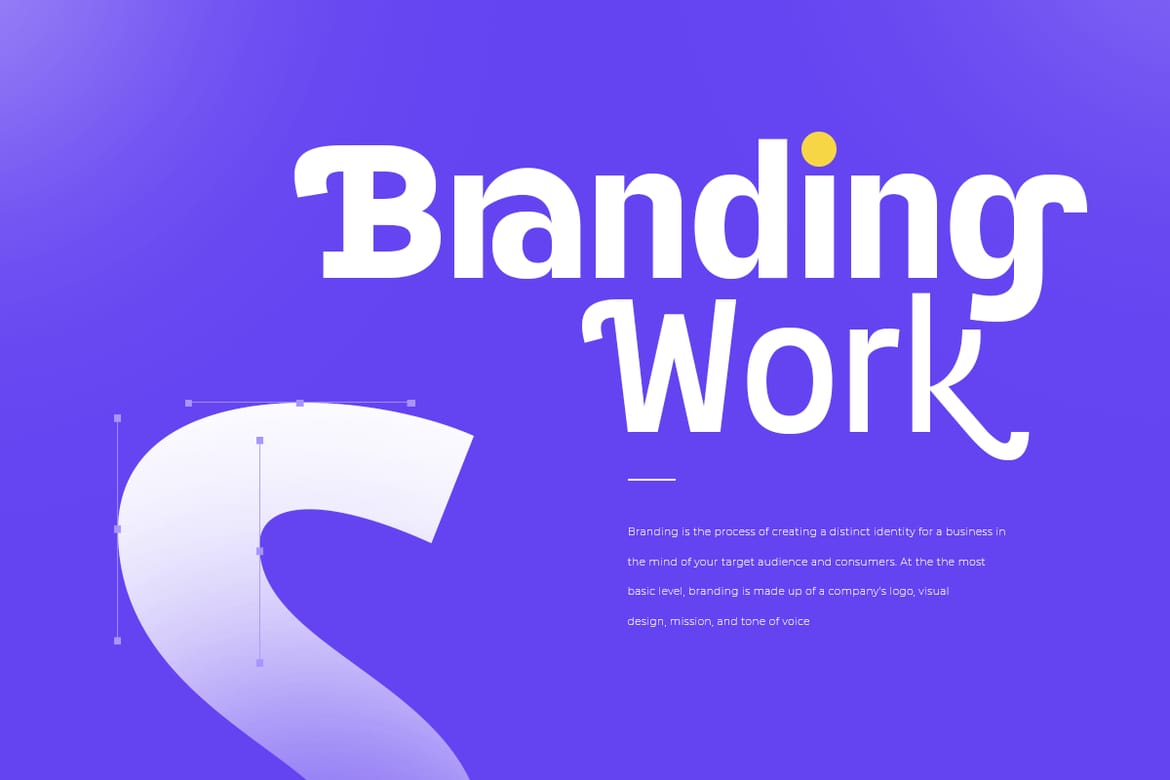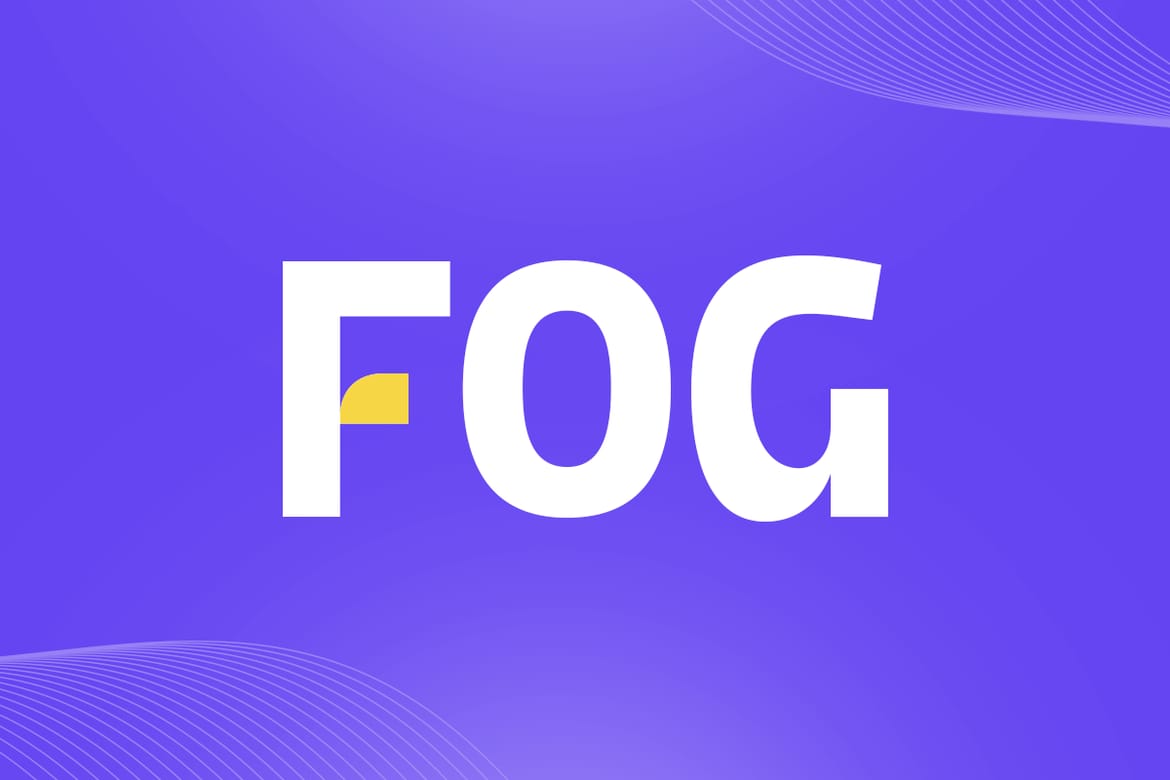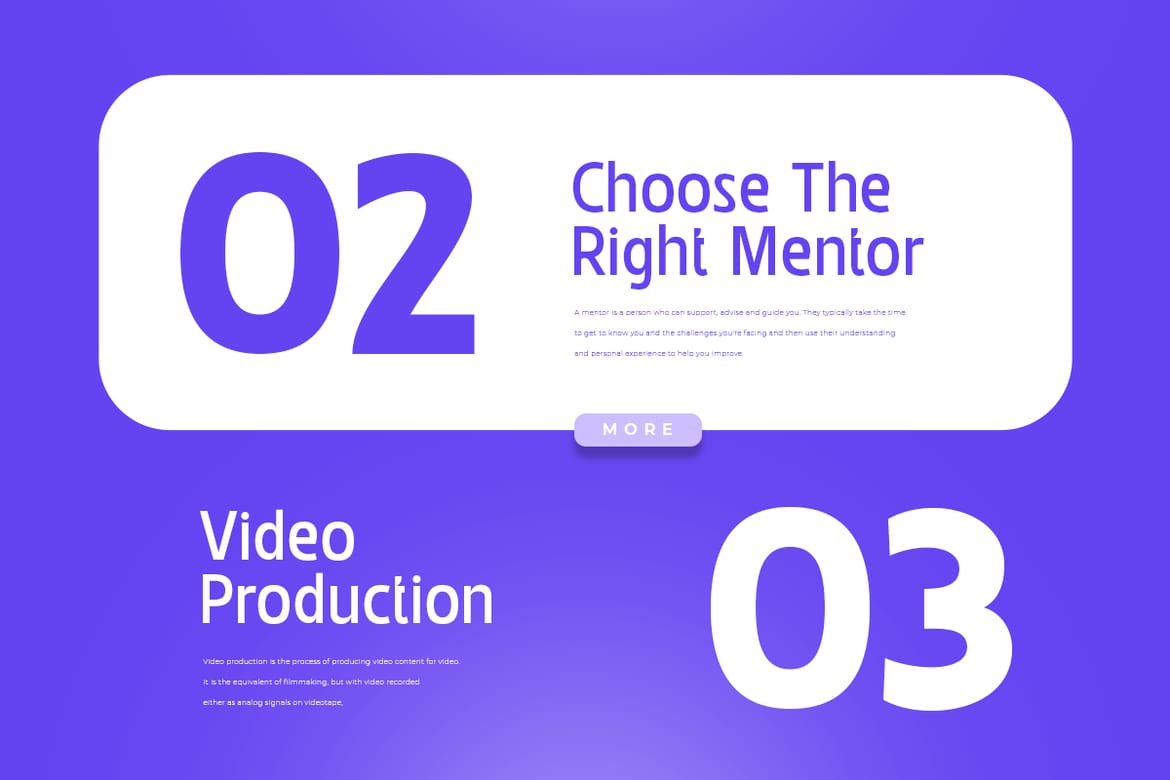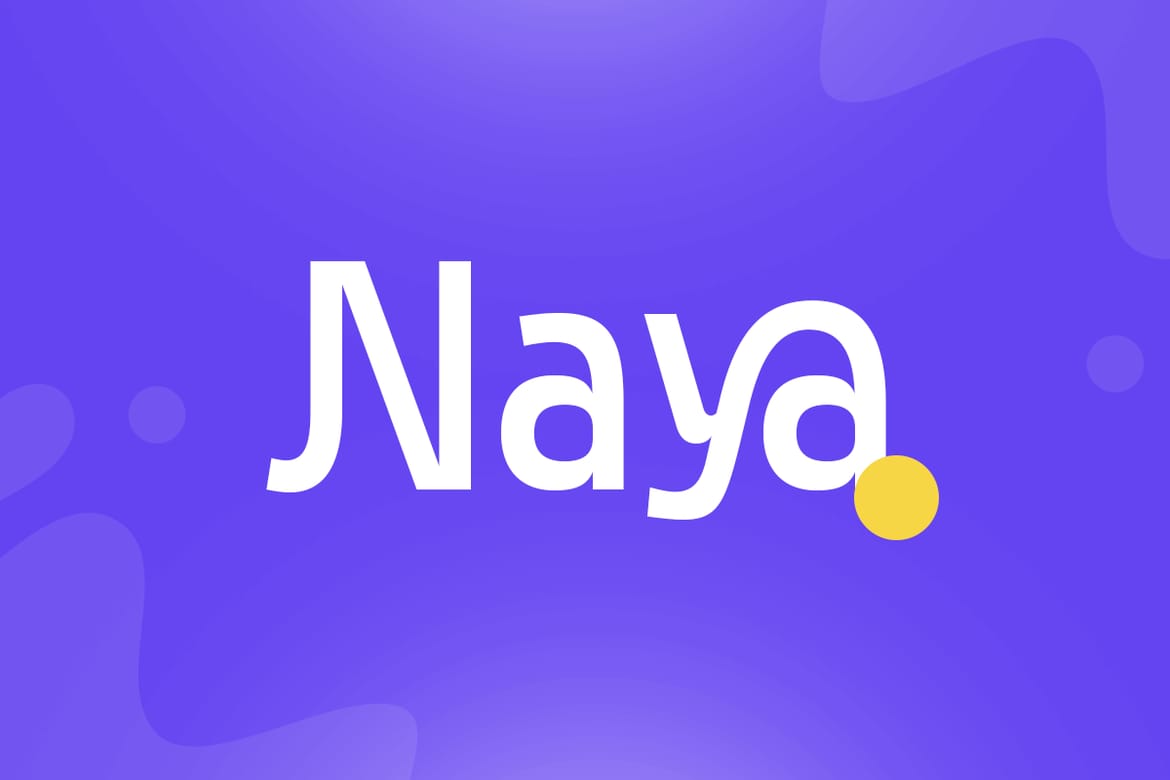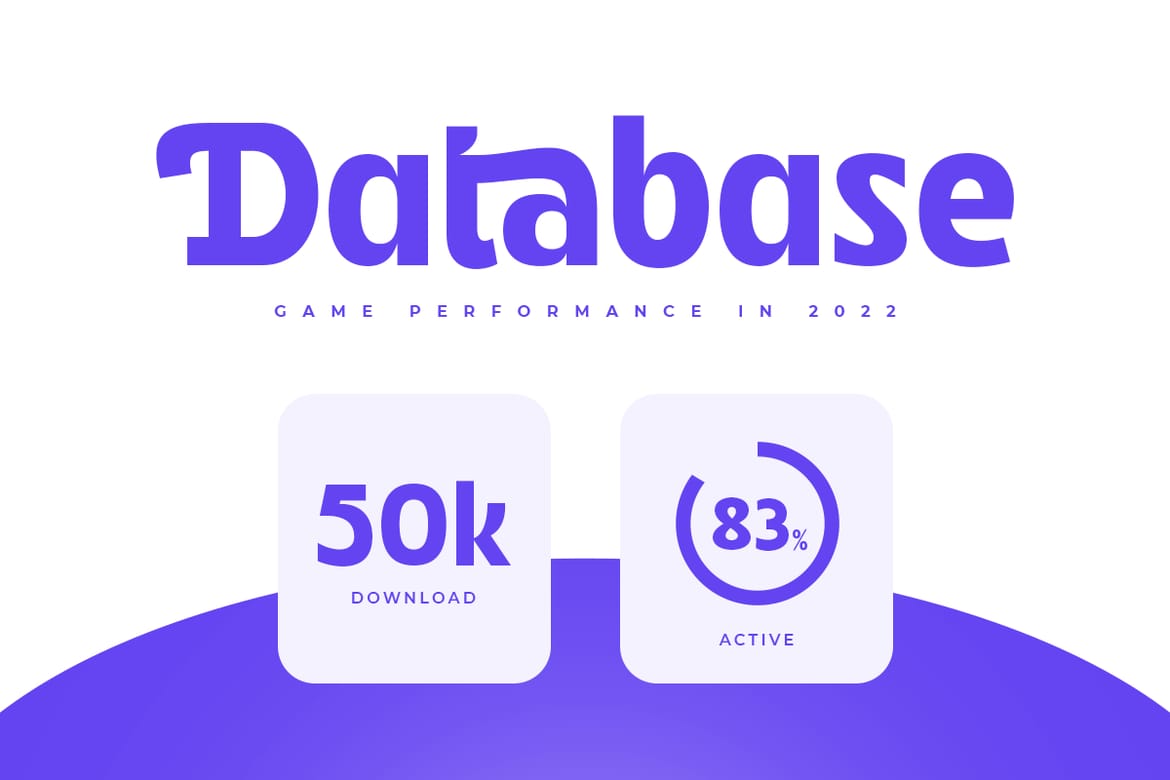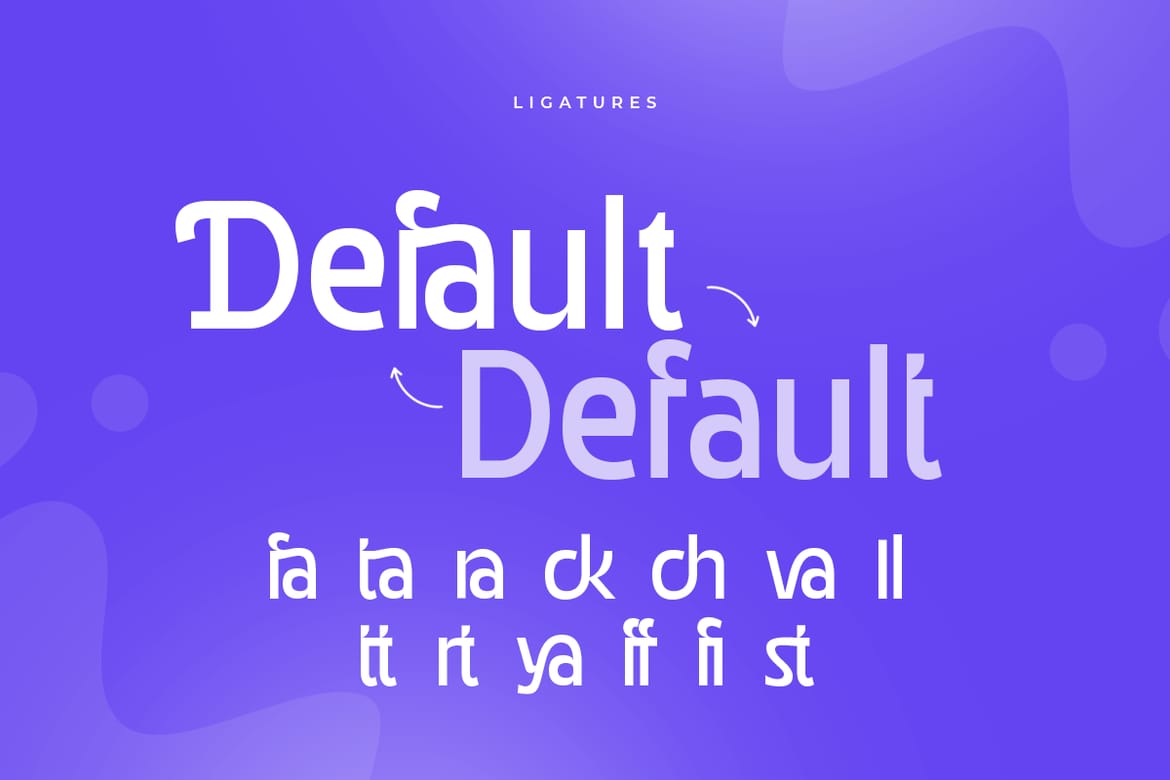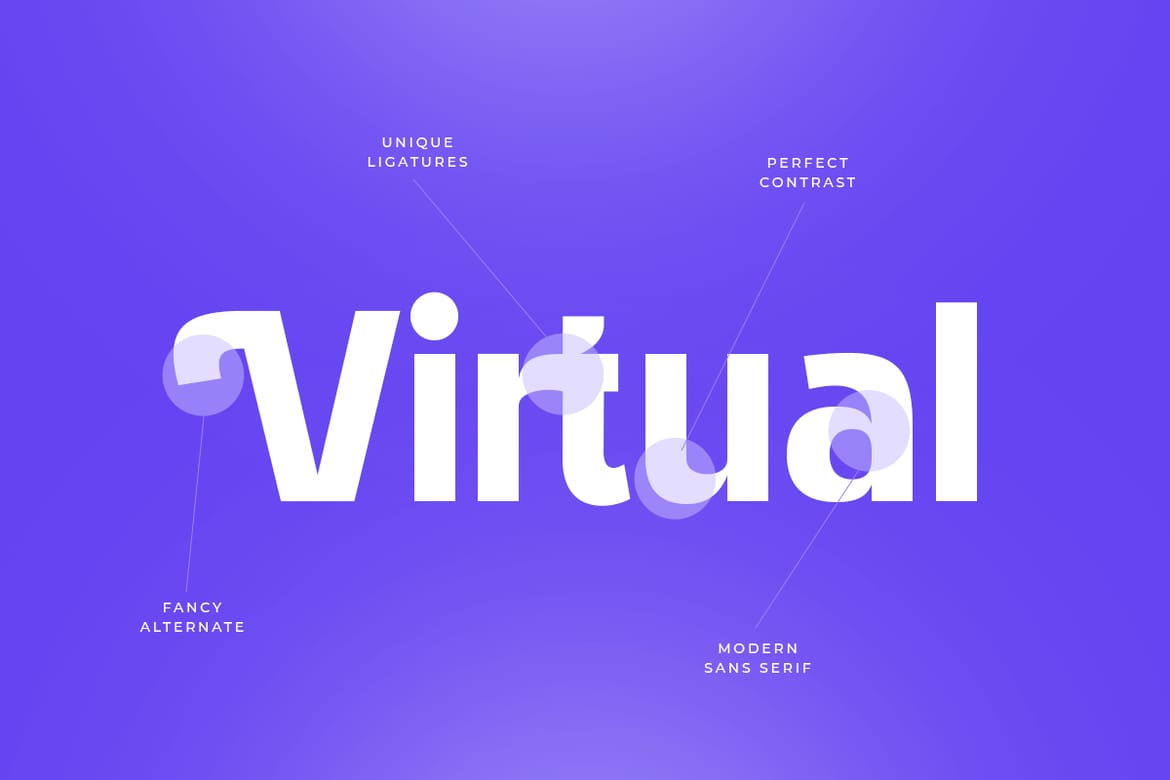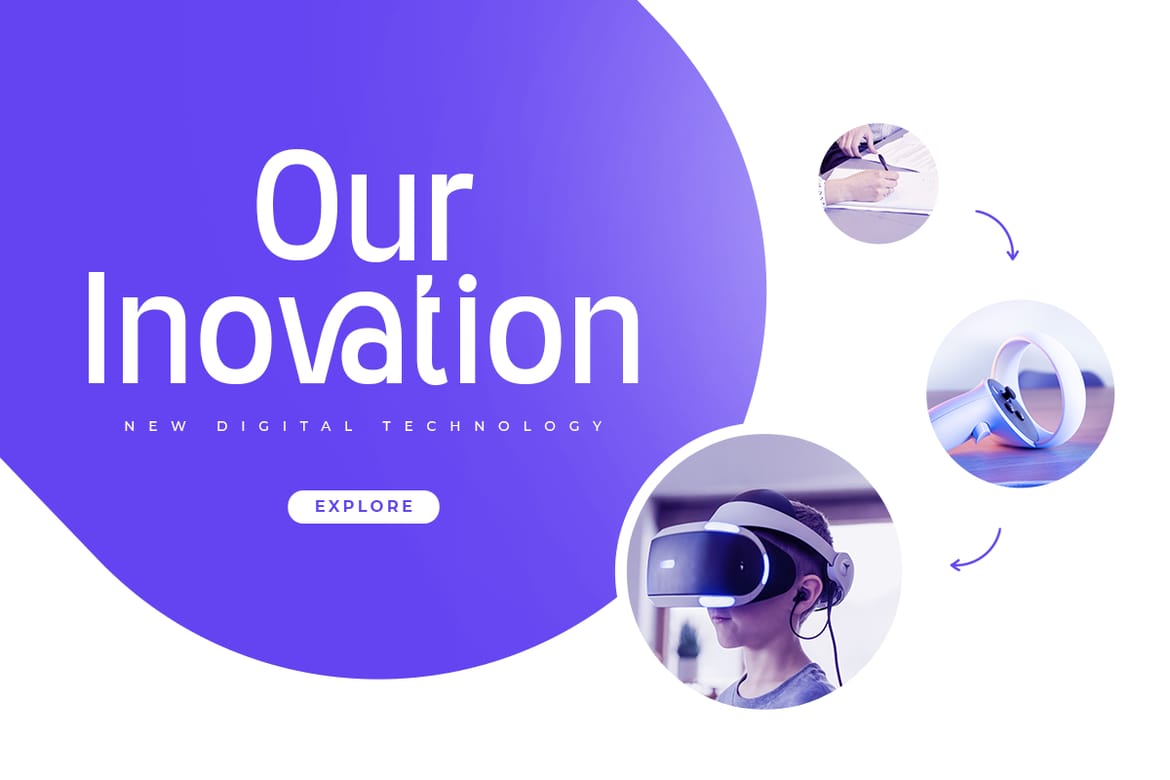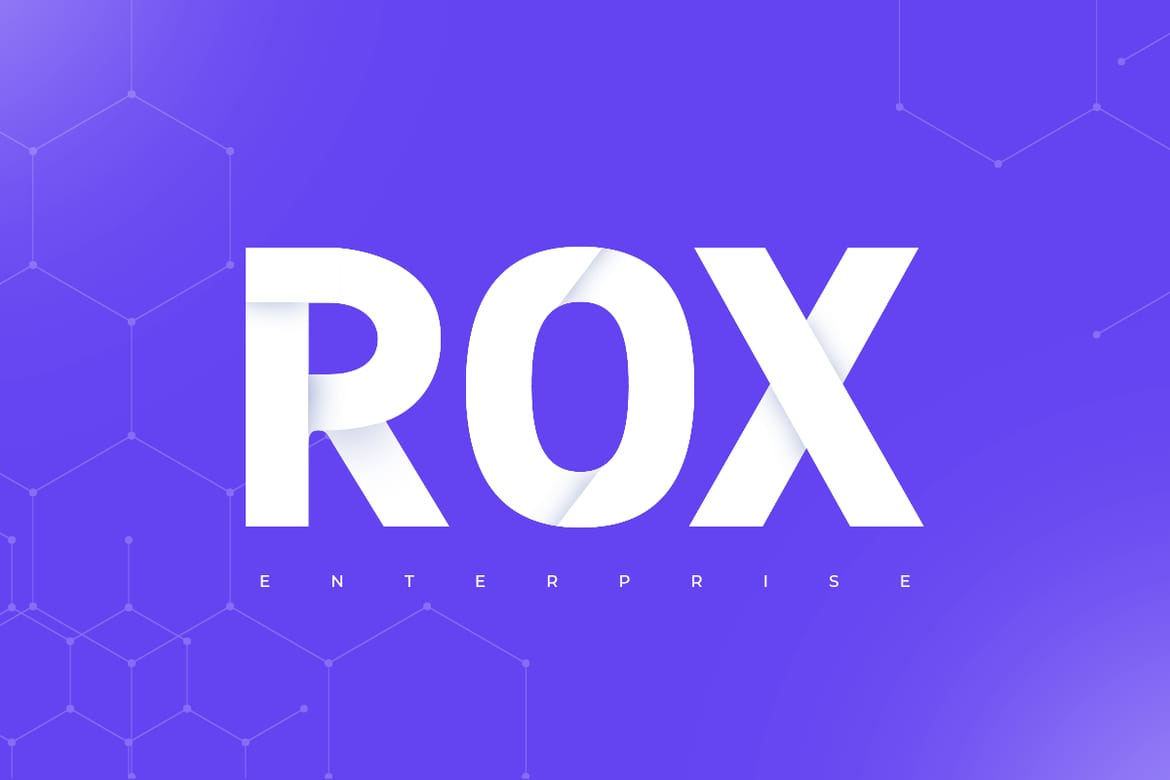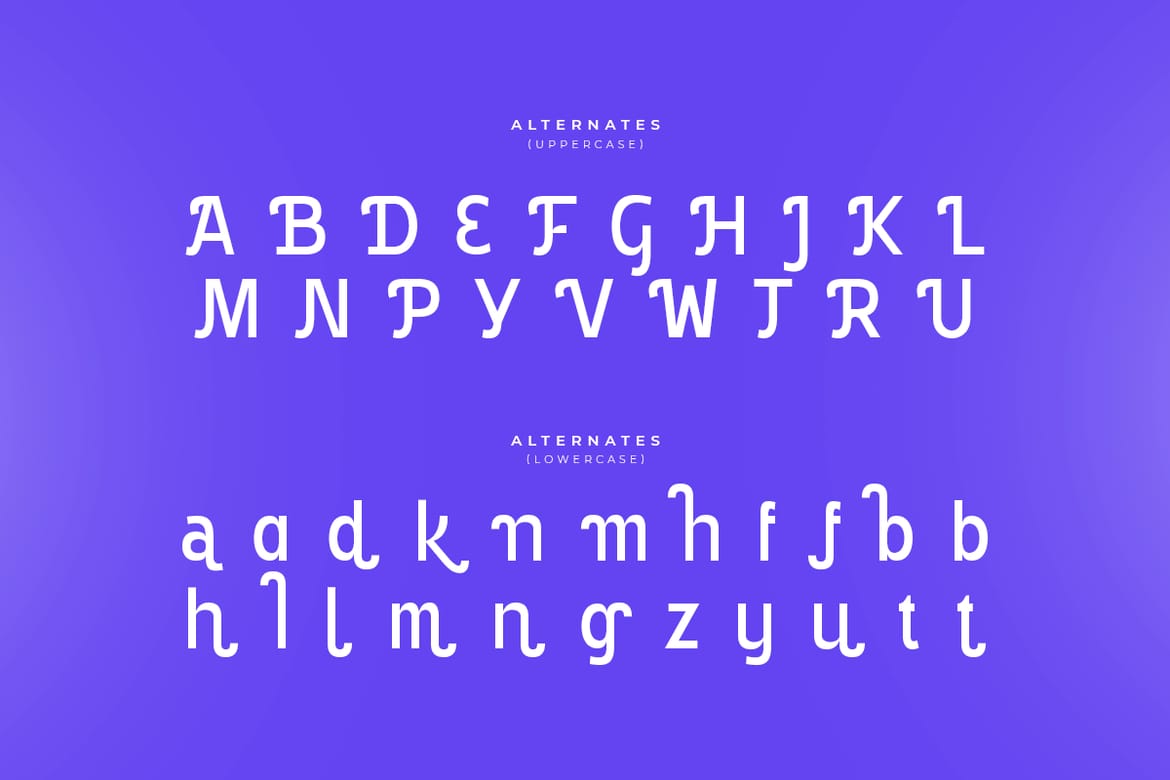
A Modern font that we created special for unique branding needs, with extra ligatures in unique shape will be ready to add value of your brand. It so nice to leverage designer or product owner that need solutions to make their design look more unique and modern. And specially for this font, We prepared any ligatures characters to help you create unlimited variations with outline font style for your creative needs.
Gilbert - Unique Modern Sans Serif ready with:
Bold and Regular Versions
Preview as a inspirations that you can do with Gilbert font
Ready with Lowercase and Uppercase characters
- Unique ligature outline sans serif
- Bold and regular weight versions